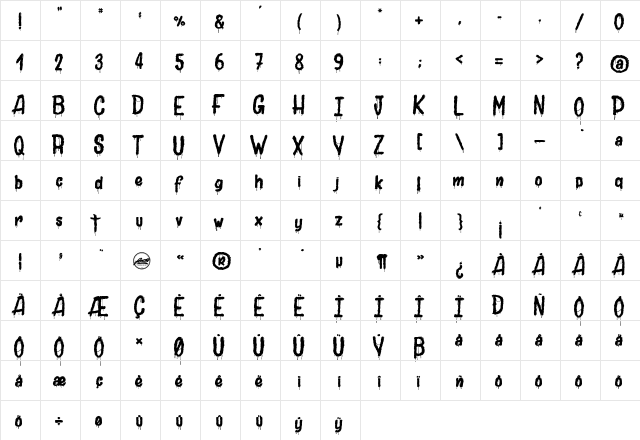
Joly Death Regular
| Foundry | dcoxy Medina Gregory |
| Designer | dcoxy Medina Gregory |
Design Context for Joly Death Typeface
Joly Death carries an unsettling edge — its distorted letterforms are built to unsettle, perfectly suited to horror, Halloween, and dark creative work.
Ideal for Halloween projects, horror film titles, haunted house signage, and dark editorial design.
Font Pairing: Pair with a clean neutral sans-serif for body copy to let Joly Death's character lead without overwhelming the composition.
Pro Tip: Joly Death works best as a headline or focal element. Pair it against plain, neutral body text to amplify the contrast.